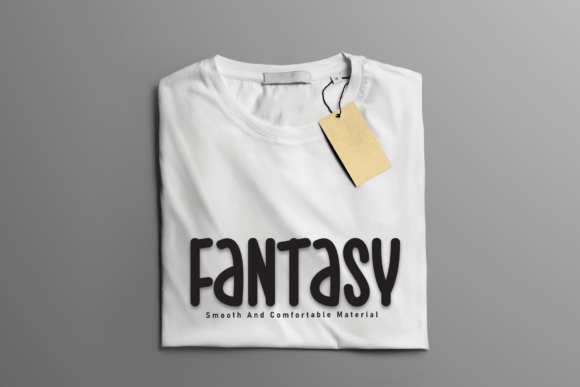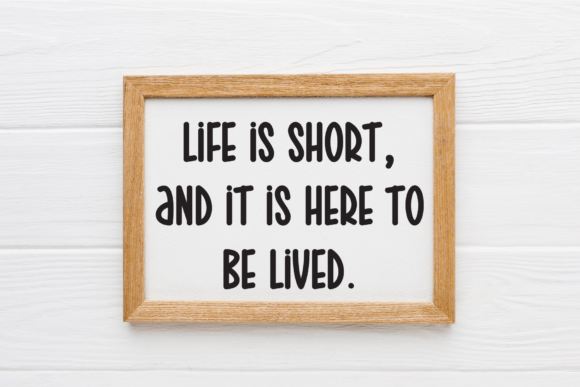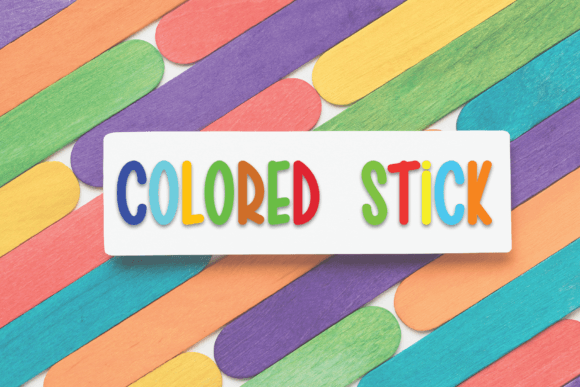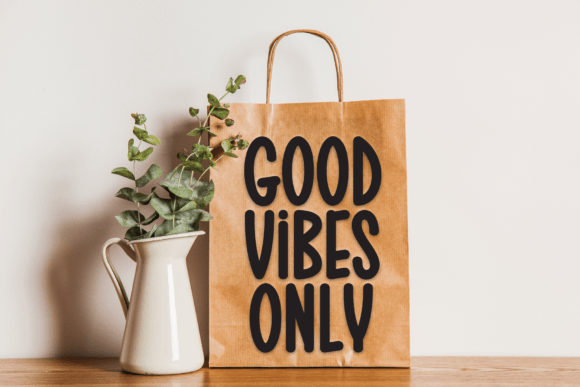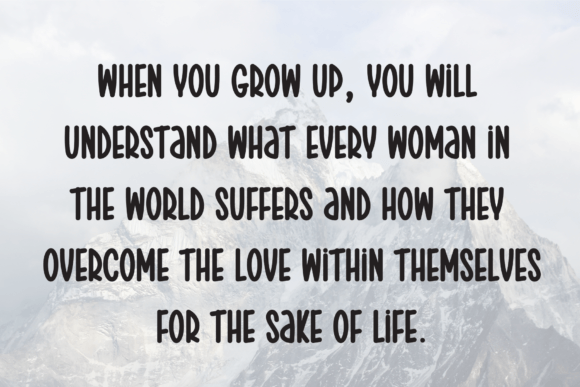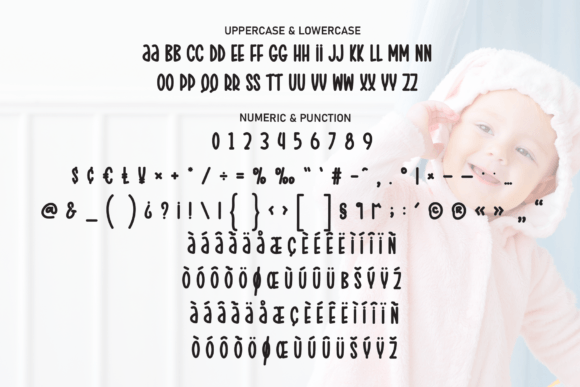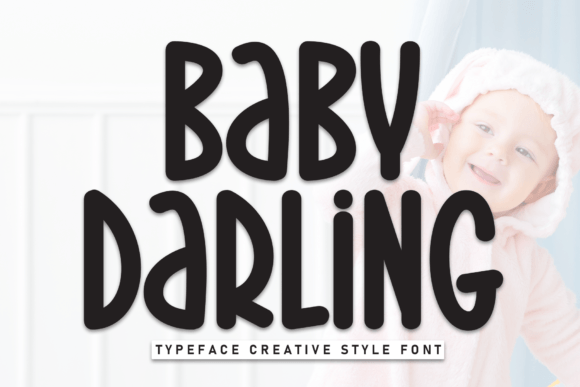
Baby Darling Font: The Perfect Addition to Your Design Arsenal
Are you tired of using the same old fonts in your designs? Look no further than the Baby Darling font, a playful and bold handwritten font that’s sure to add a personal touch to your creations. With its thick, rounded letters and fun, friendly vibe, Baby Darling is the perfect choice for designers and crafters looking to add some personality to their work.
What is Baby Darling Font?
Baby Darling is a modern, handwritten font that’s designed to bring a touch of whimsy and fun to your designs. Its unique, rounded letters are carefully crafted to give it a friendly and approachable feel, making it perfect for use in a variety of design projects, from invitations and greeting cards to social media graphics and branding materials.
Key Features of Baby Darling Font
- Playful and Bold: Baby Darling is a playful and bold font that’s sure to grab attention. Its thick, rounded letters give it a fun and friendly vibe that’s perfect for designs that need a little extra personality.
- Handwritten Style: Baby Darling is a handwritten font that’s designed to look like it was written with love. Its unique, imperfect letters give it a personal touch that’s hard to find with more traditional fonts.
- Versatile: Baby Darling is a versatile font that can be used in a variety of design projects, from digital graphics to print materials.
- Easy to Read: Despite its playful style, Baby Darling is surprisingly easy to read, making it perfect for use in designs where you need to communicate a message.
Uses for Baby Darling Font
Baby Darling is a versatile font that can be used in a wide range of design projects, including:
- Invitations: Add a personal touch to your invitations with Baby Darling. Its playful style is perfect for baby showers, birthday parties, and other celebrations.
- Greeting Cards: Use Baby Darling to add a touch of whimsy to your greeting cards. Its friendly vibe is perfect for birthdays, holidays, and other special occasions.
- Social Media Graphics: Add some personality to your social media graphics with Baby Darling. Its bold, playful style is perfect for grabbing attention and standing out in crowded feeds.
- Branding Materials: Use Baby Darling to add a personal touch to your branding materials, such as business cards, brochures, and packaging.
Tips for Using Baby Darling Font
Here are a few tips for getting the most out of Baby Darling:
- Use it sparingly: While Baby Darling is a fun and playful font, it can be overwhelming if used too much. Use it sparingly to add a touch of personality to your designs.
- Pair it with other fonts: Baby Darling pairs well with a variety of other fonts, including sans-serif fonts and script fonts. Experiment with different pairings to find the one that works best for your design.
- Experiment with colors: Baby Darling looks great in a variety of colors, from bright and bold to soft and pastel. Experiment with different colors to find the one that works best for your design.
Baby Darling is a playful and bold handwritten font that’s perfect for adding a personal touch to your designs. With its thick, rounded letters and fun, friendly vibe, it’s the perfect choice for designers and crafters looking to add some personality to their work. Whether you’re creating invitations, greeting cards, social media graphics, or branding materials, Baby Darling is sure to bring a touch of whimsy and fun to your designs.